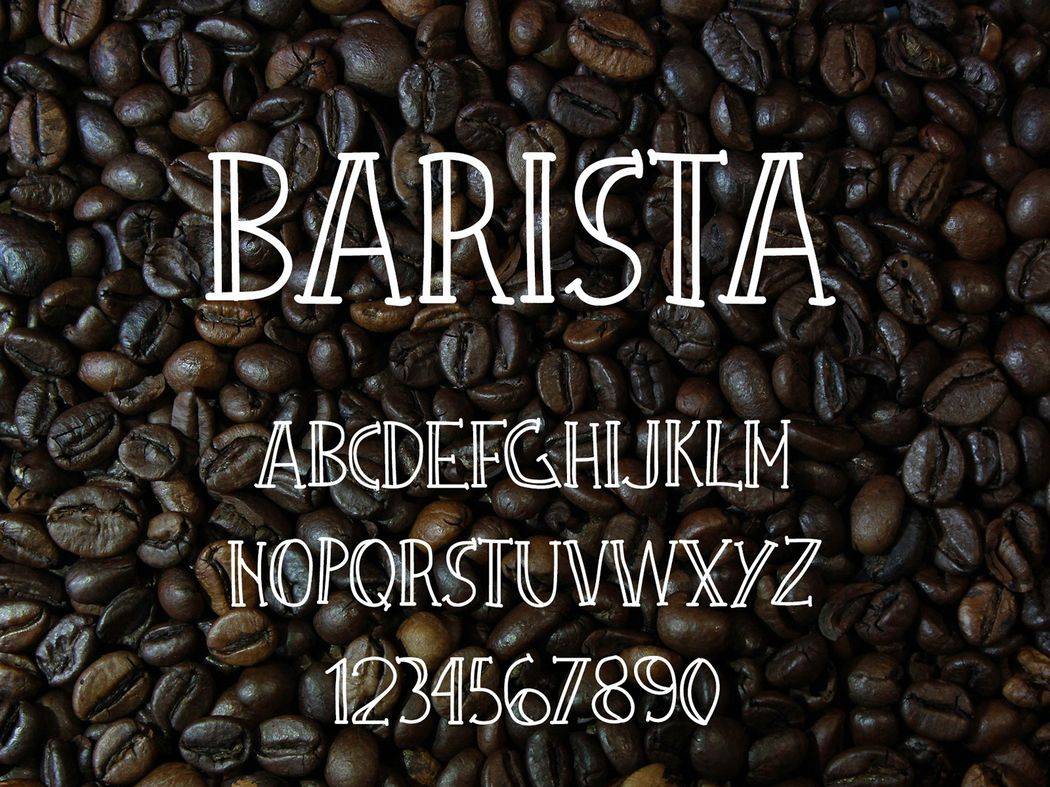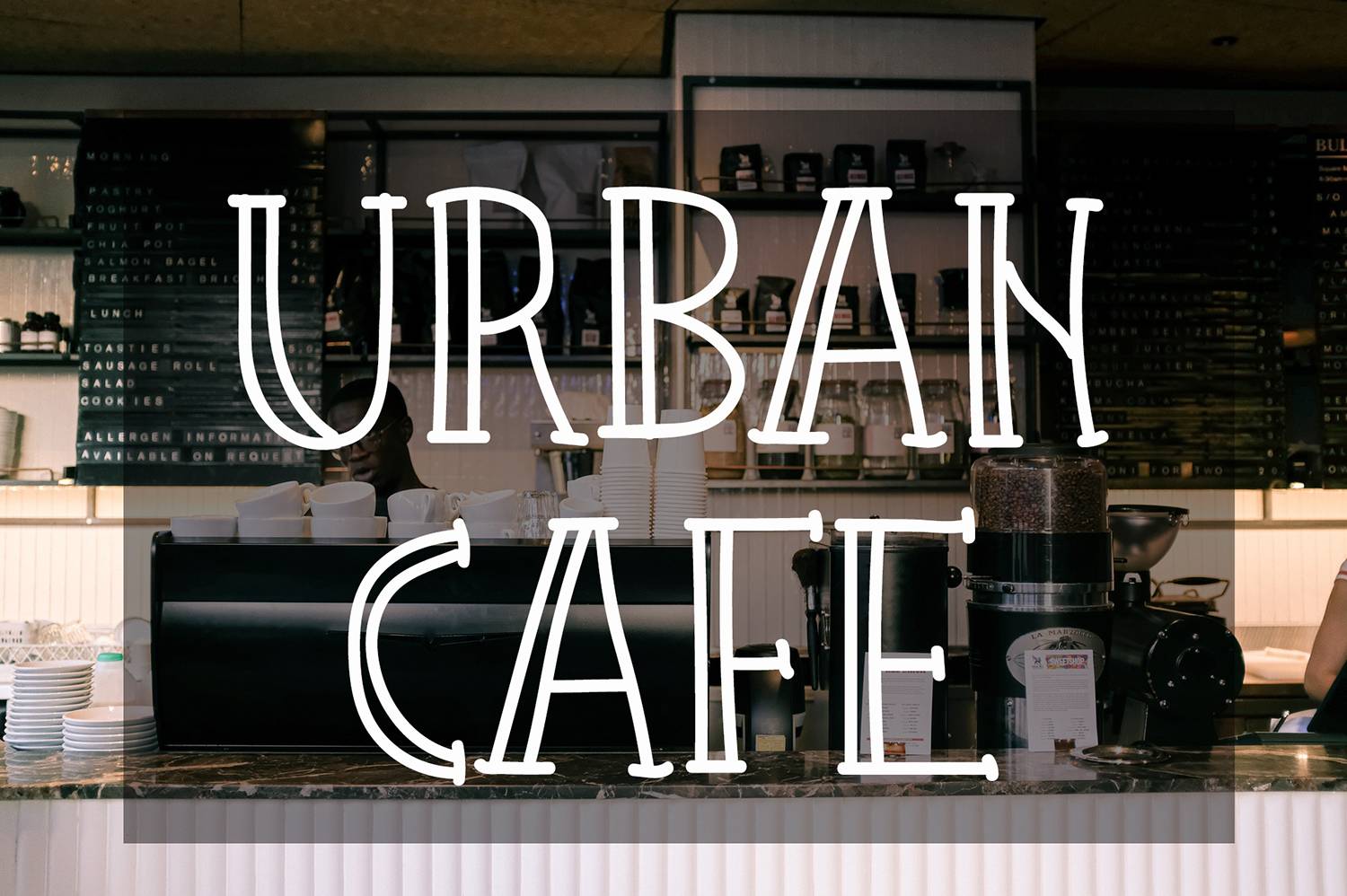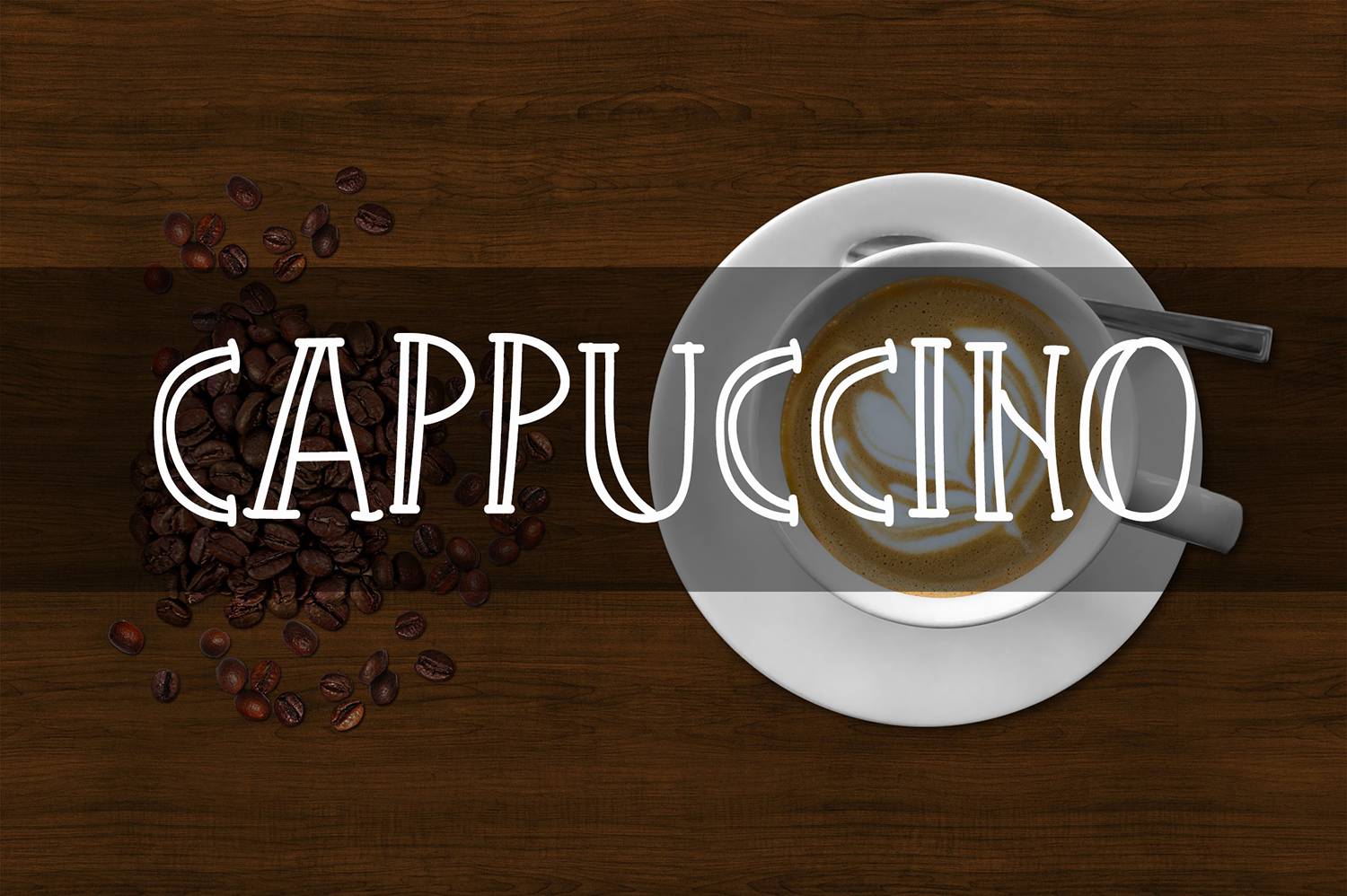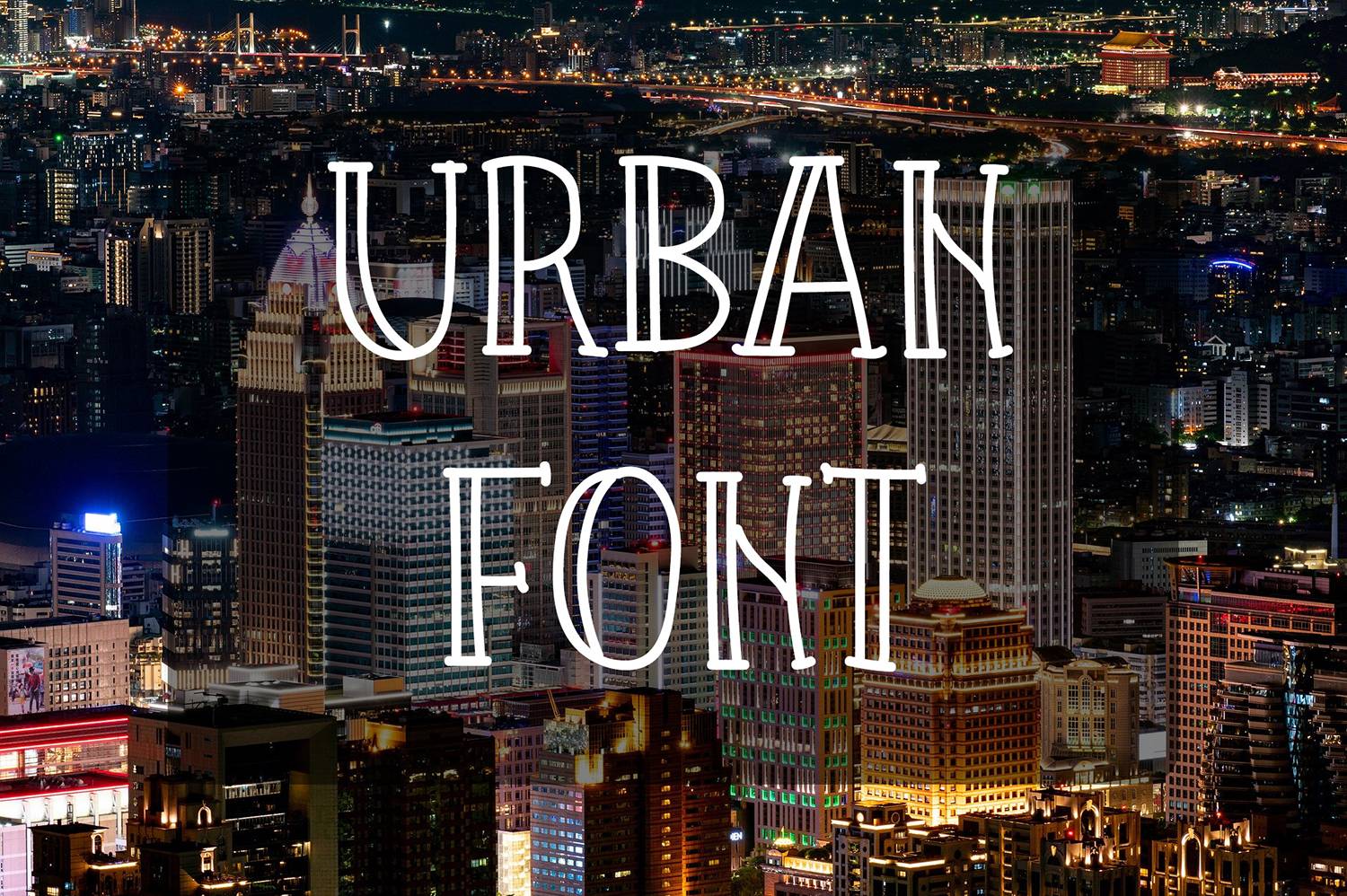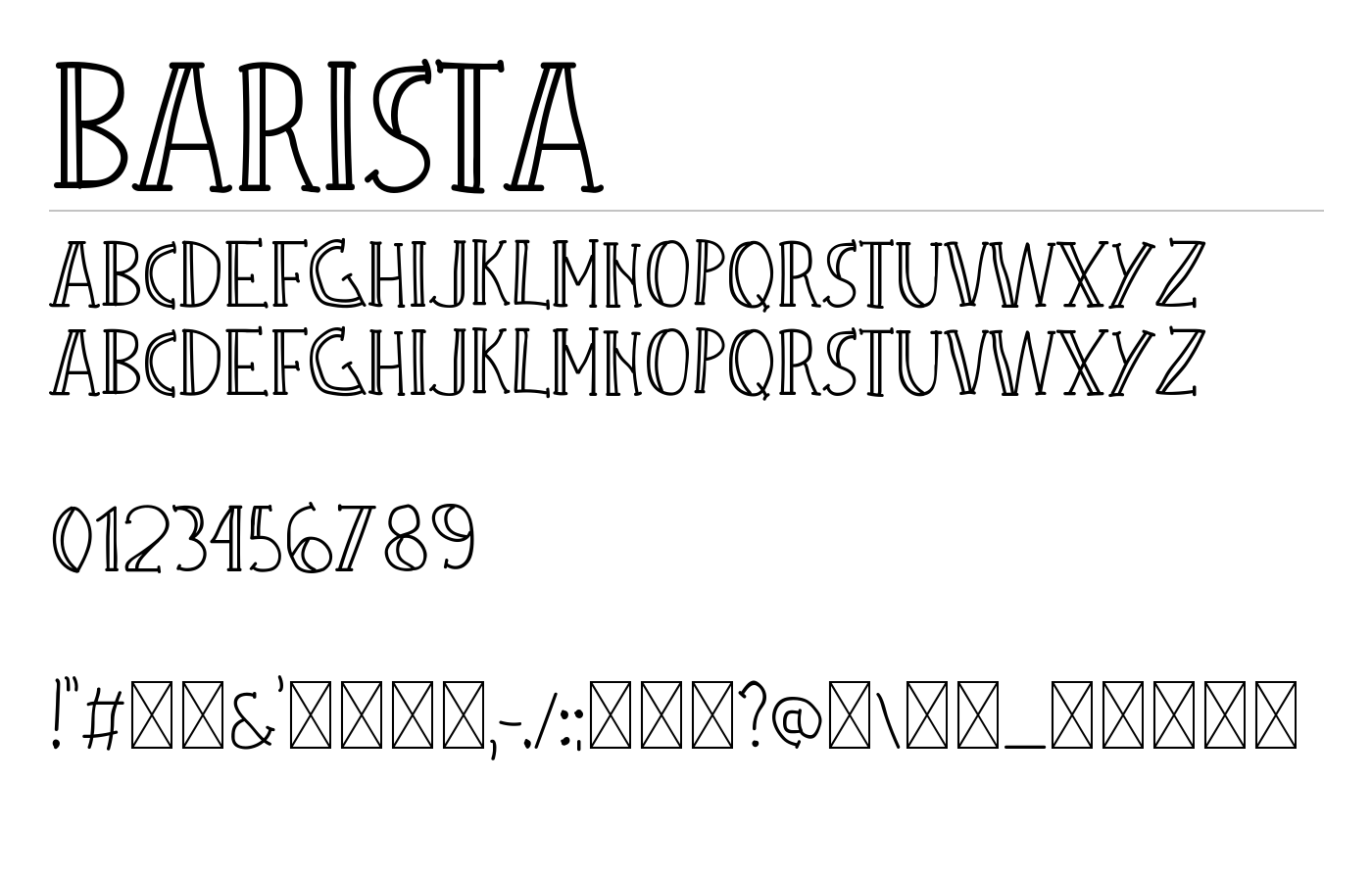
Barista Urban Coffee is a narrow, playful serif font with a whimsical, hand-drawn feel. Its tall, slightly irregular letterforms and delicate stroke contrast give it a lively, casual personality perfect for creative branding, cafe menus, and informal headlines. This font works best in settings that want to evoke a friendly, artistic vibe with a touch of urban charm.
Barista Urban Coffee Font
About Barista Urban Coffee Font